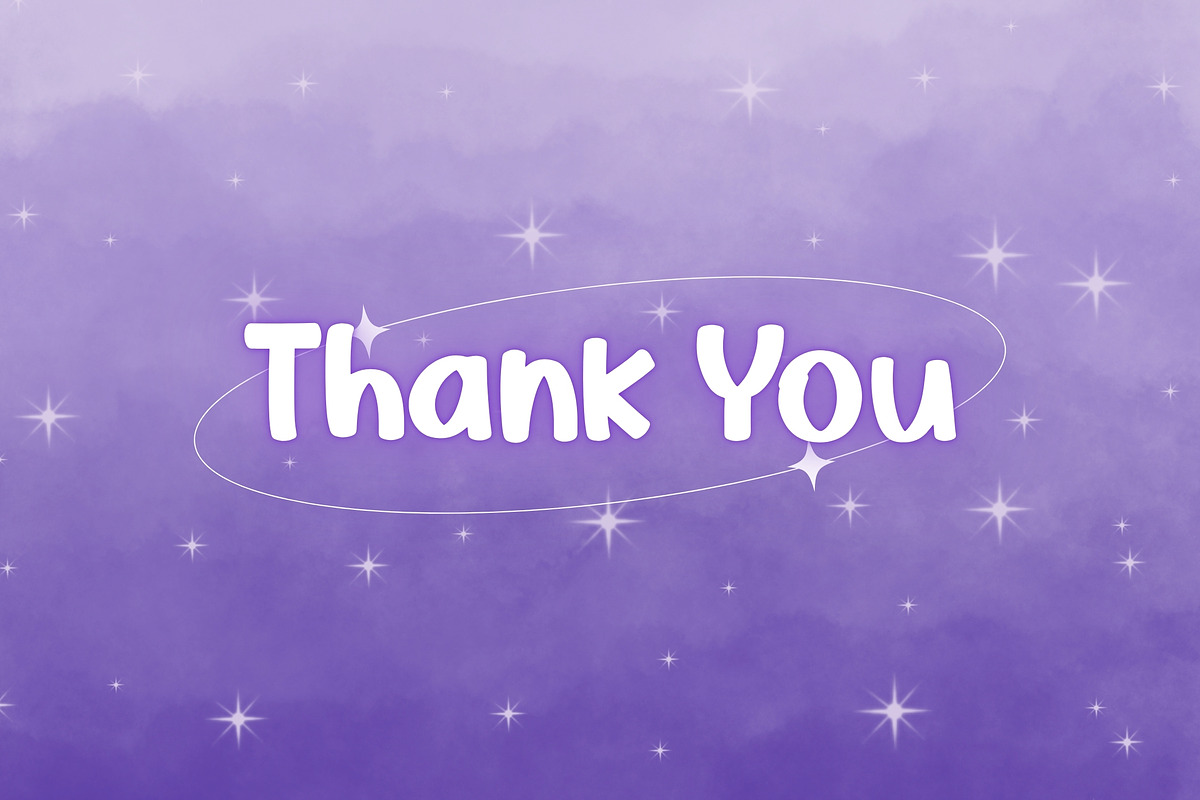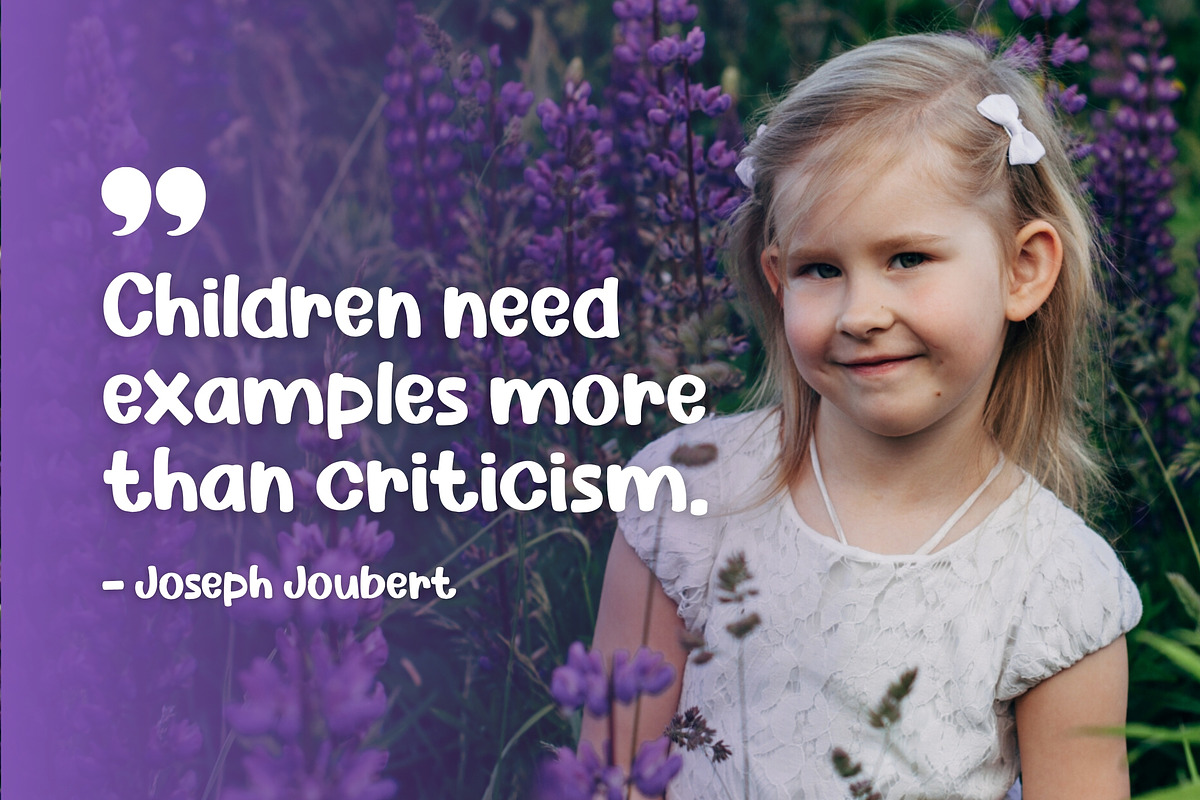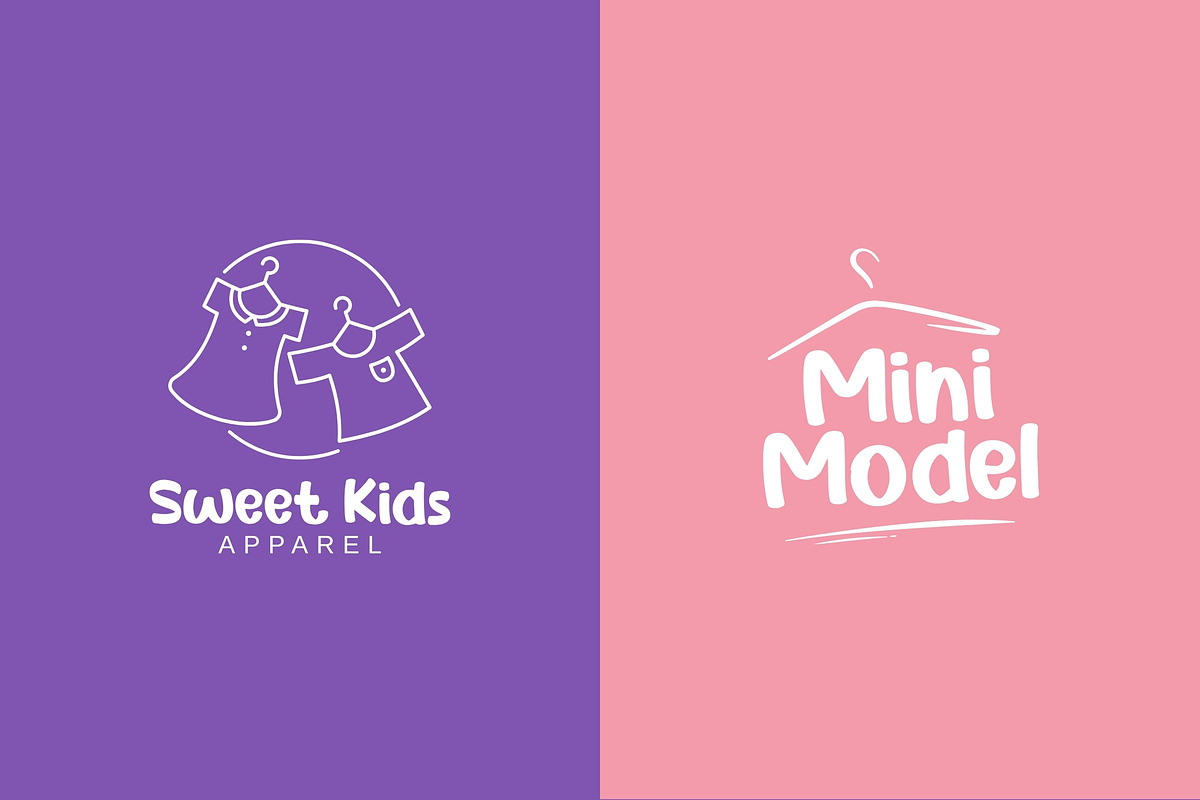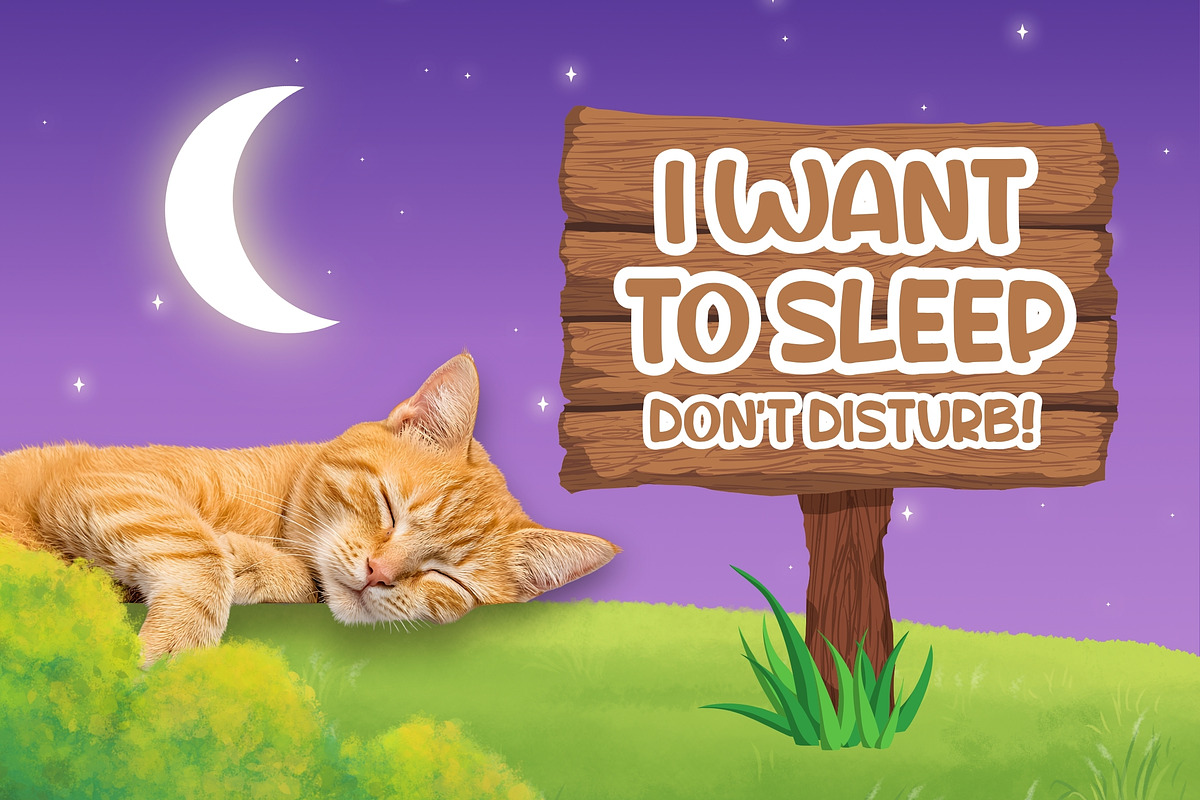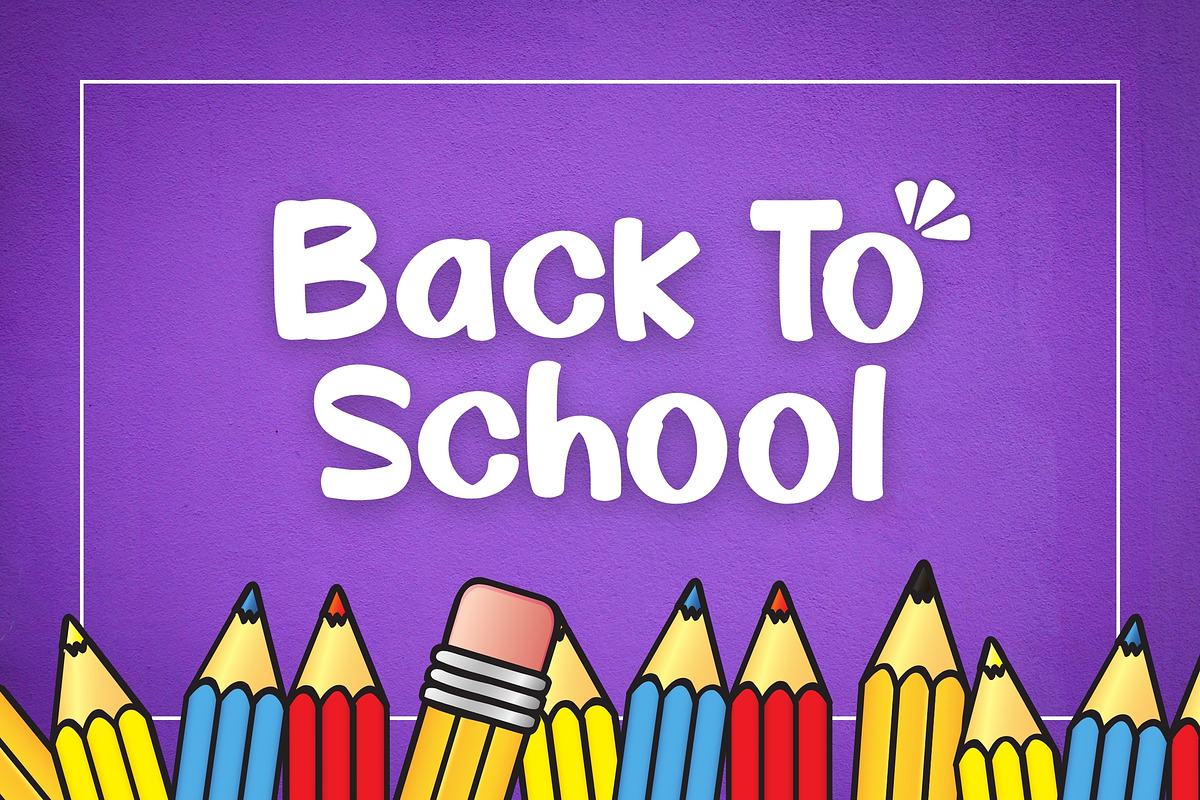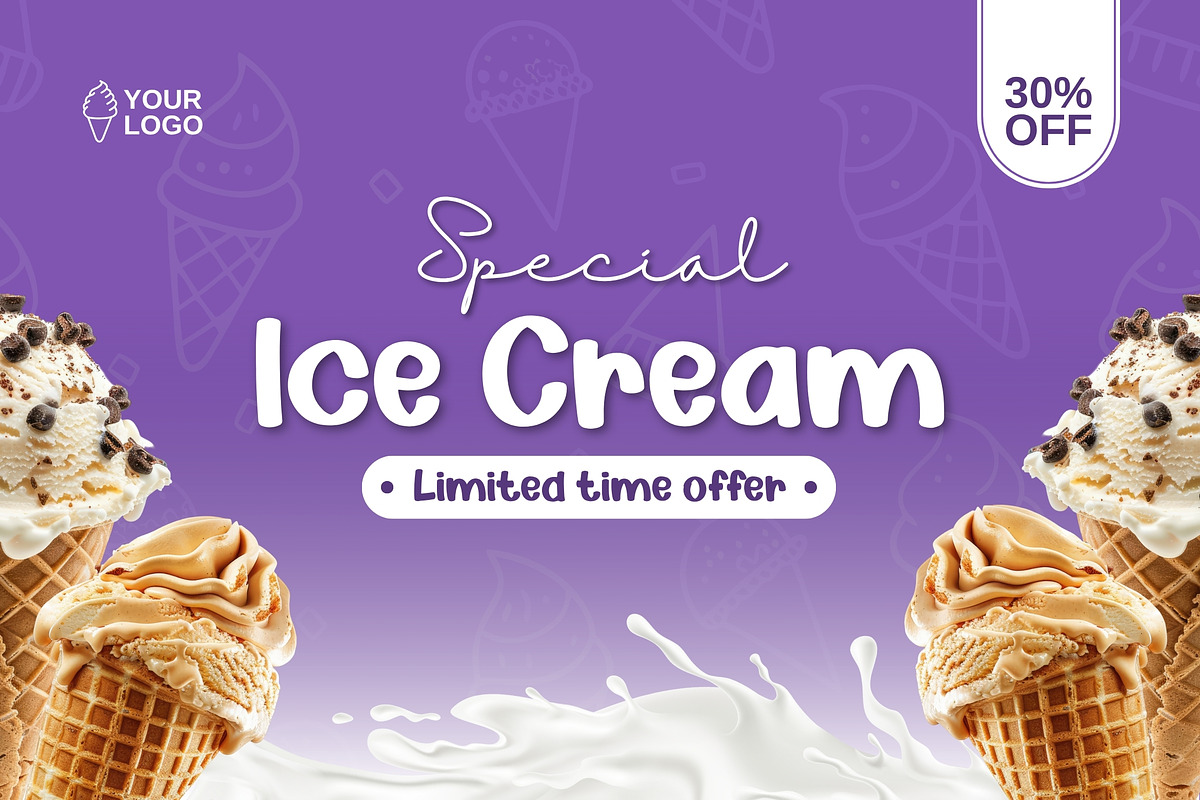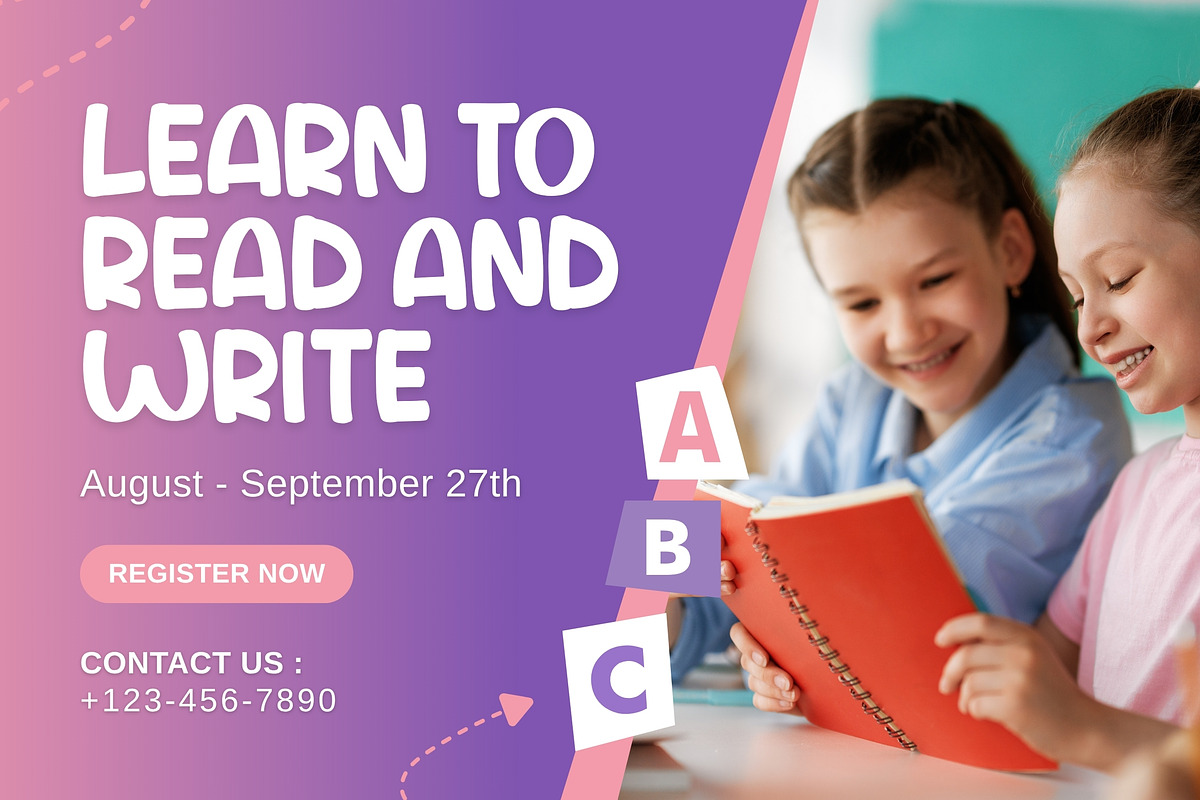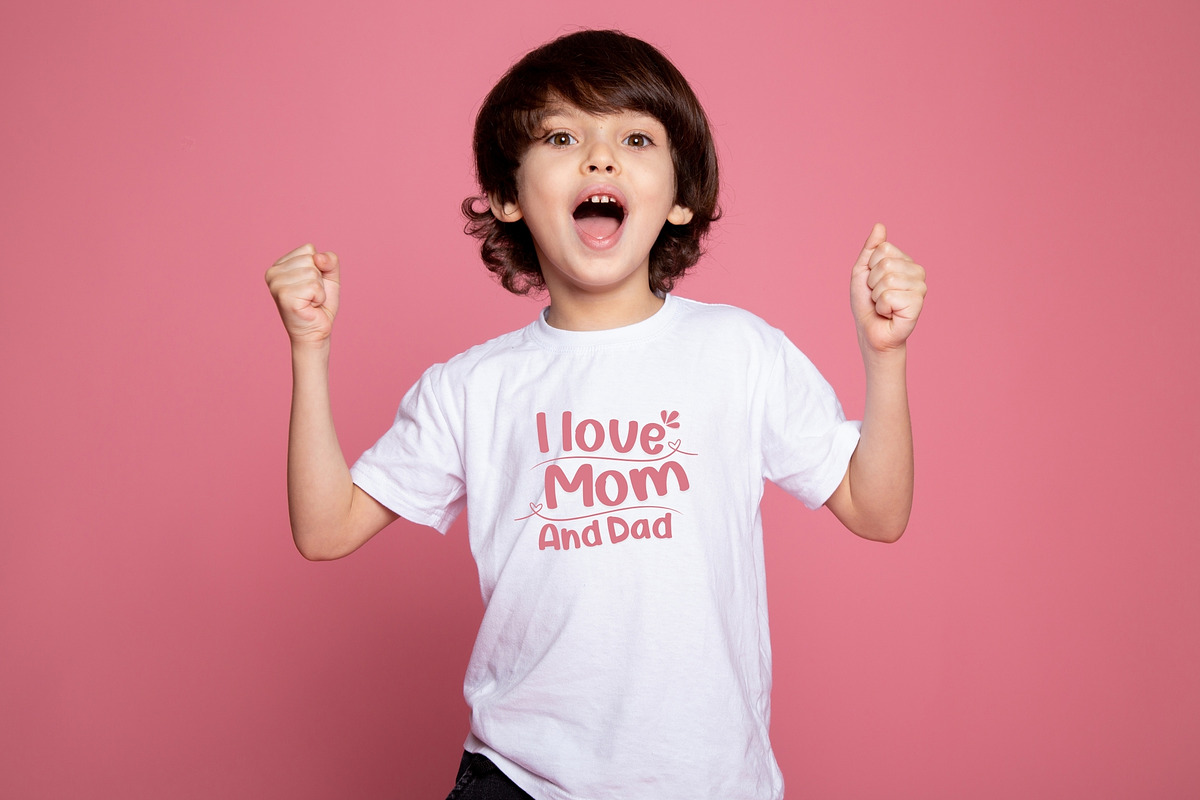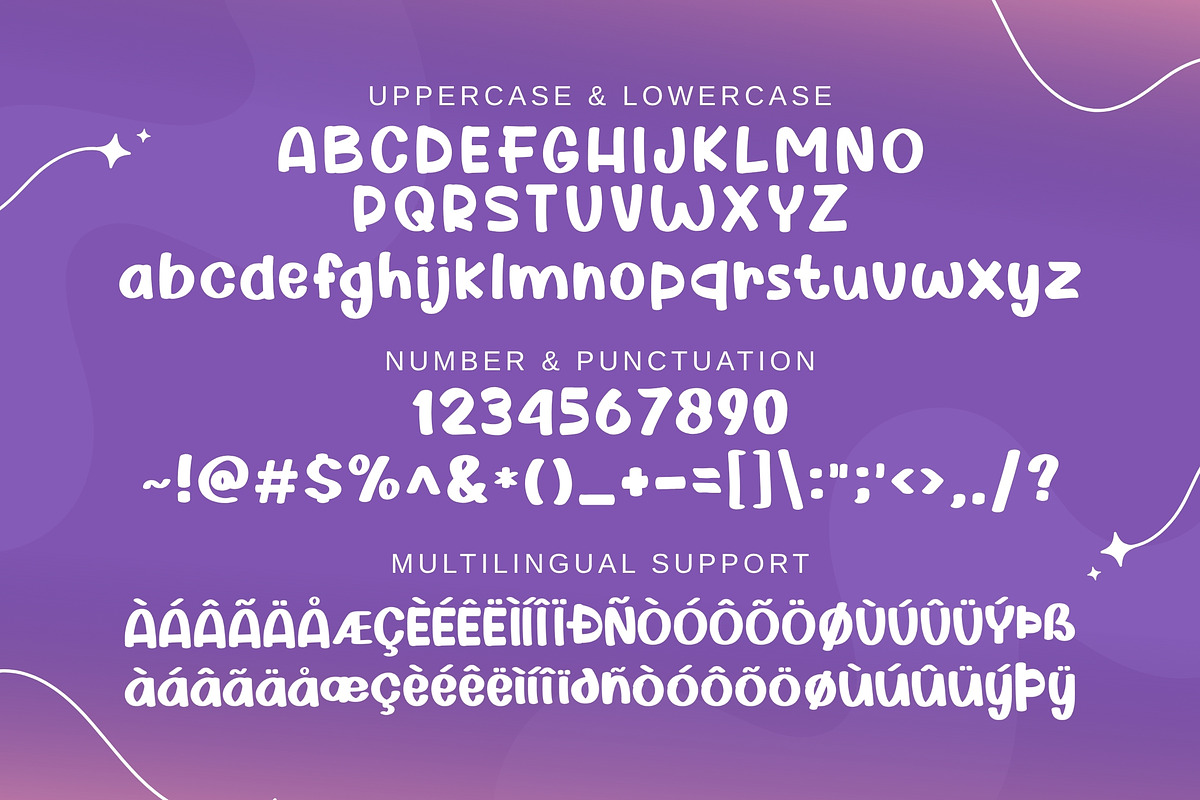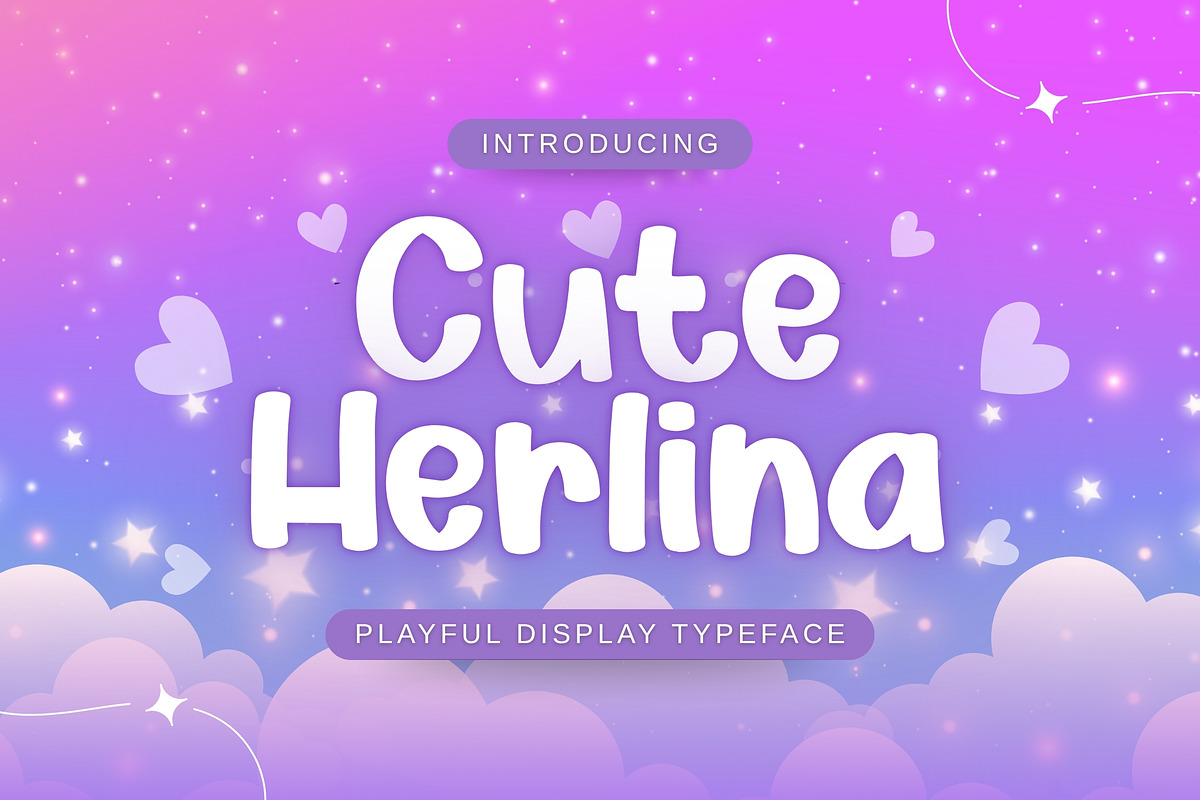
Cute Herlina – Playful Display
Cute Herlina is a premium playful display font designed to bring charm, warmth, and joyful personality into your designs. Featuring soft, rounded, and bubbly letterforms, this typeface delivers a delightful visual experience that feels both cute and professional.
Crafted with attention to balance and readability, Cute Herlina is perfect for designers who want to create high-impact yet friendly designs for children-focused projects and adorable branding concepts.
- Children’s books, worksheets, and educational materials
- Kids branding, toy packaging, and cute product labels
- Posters, stickers, and playful illustrations
- Social media content, thumbnails, and headlines
- Logos and titles with a fun and lovable character
- Complete uppercase & lowercase characters
- Numbers and essential punctuation
- Multilingual character support
- Smooth, rounded display style
- Kid-friendly and highly readable -Optimized for both print and digital use
Why Choose Cute Herlina? Cute Herlina helps your designs stand out with a polished yet adorable look. Its warm personality makes it ideal for brands and creatives who want to communicate joy, trust, and friendliness—especially in children’s and family-oriented designs.